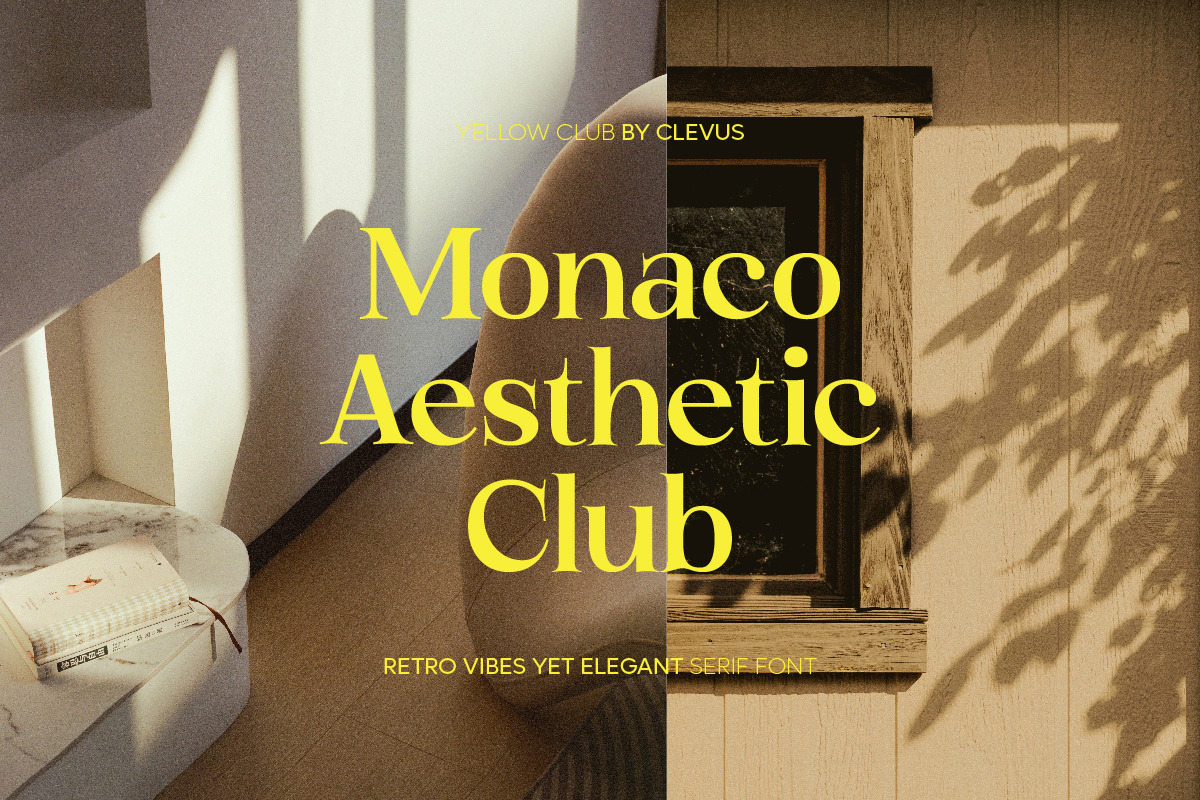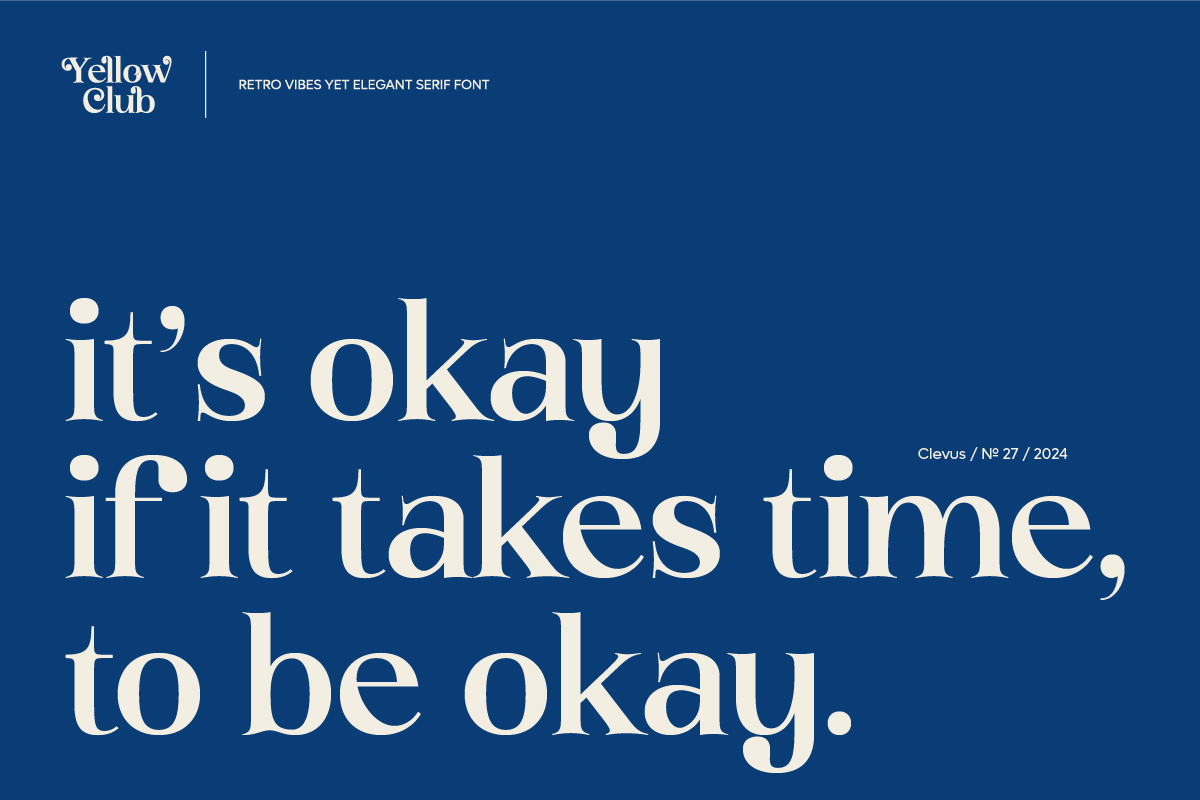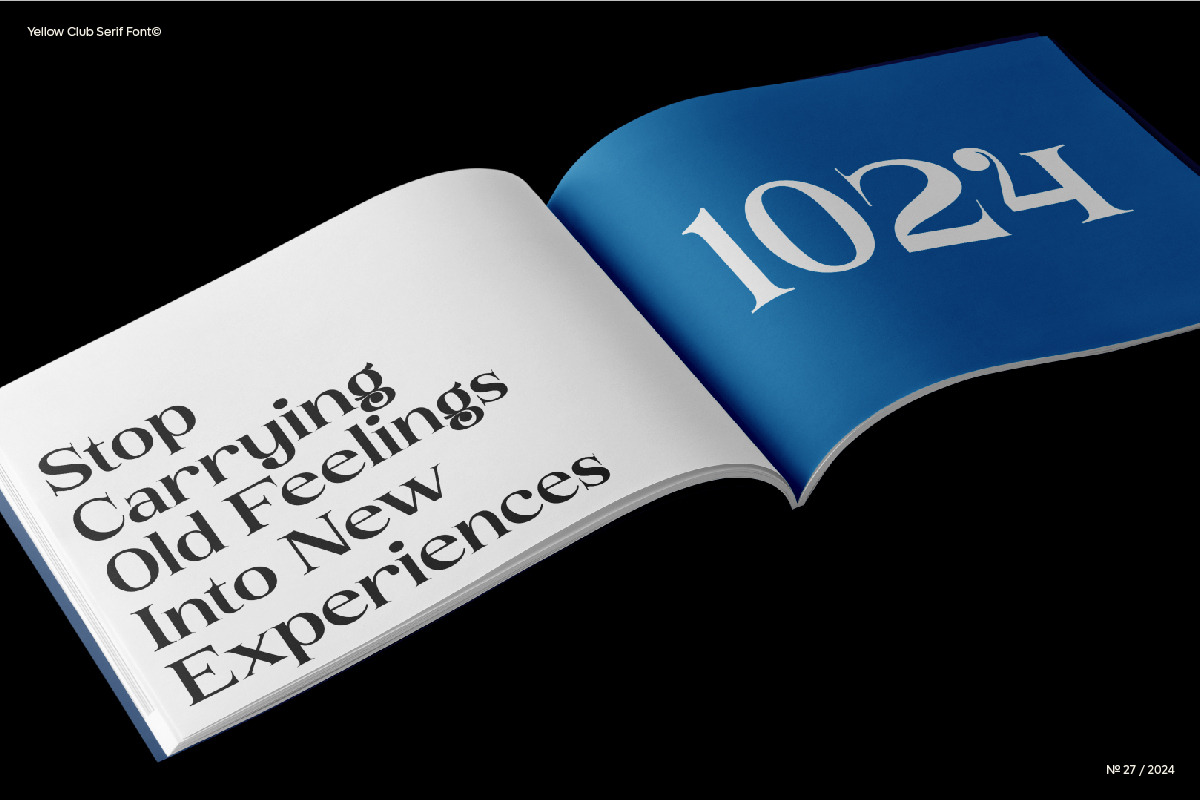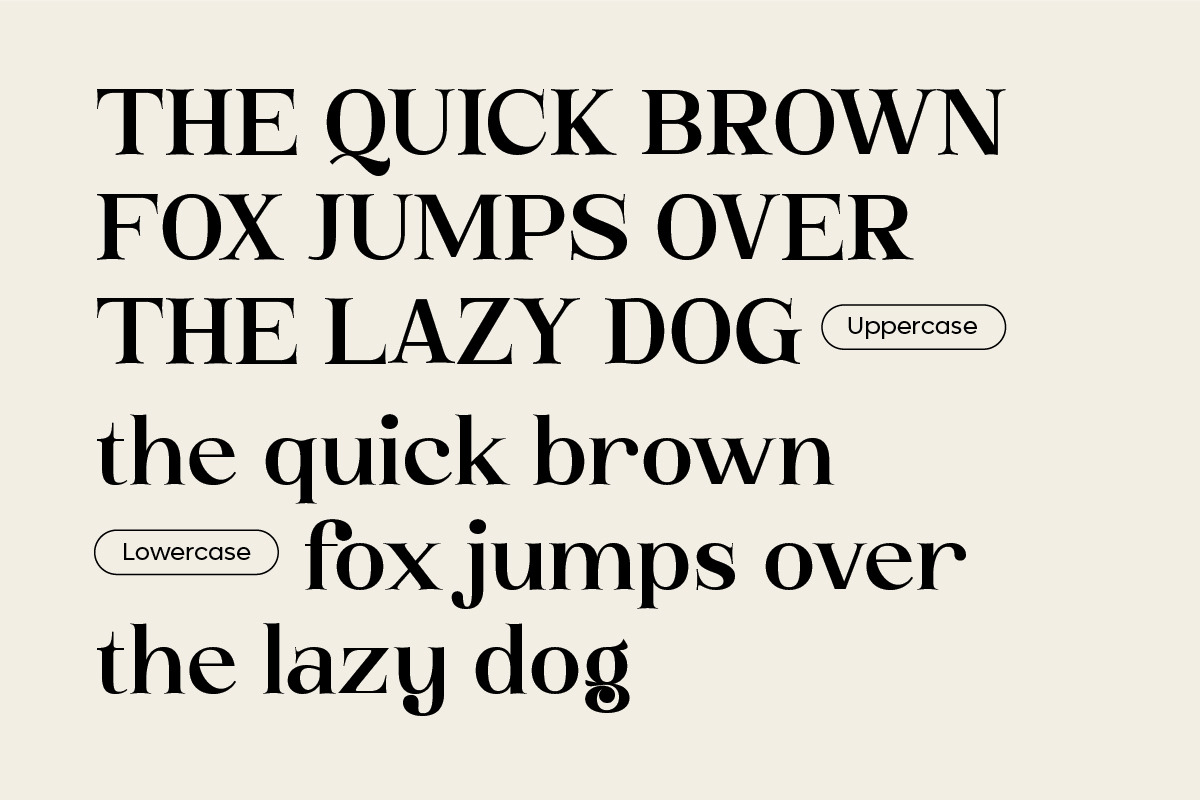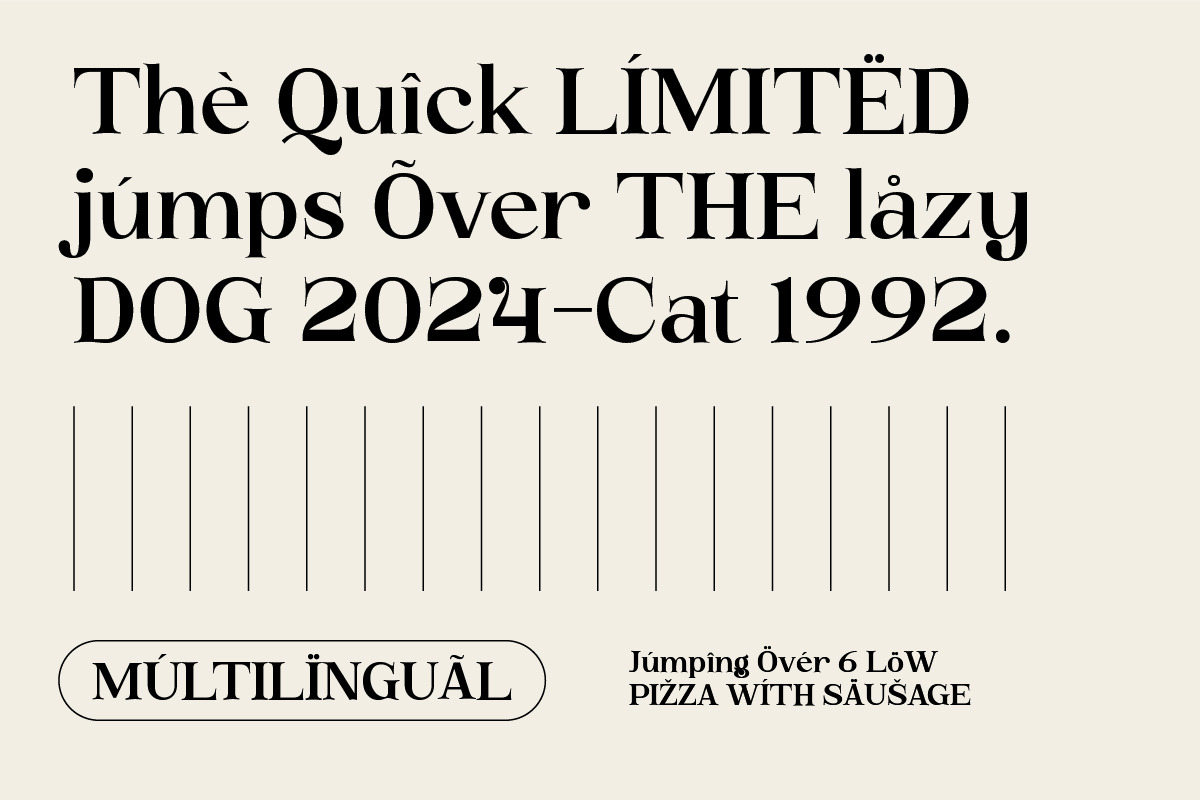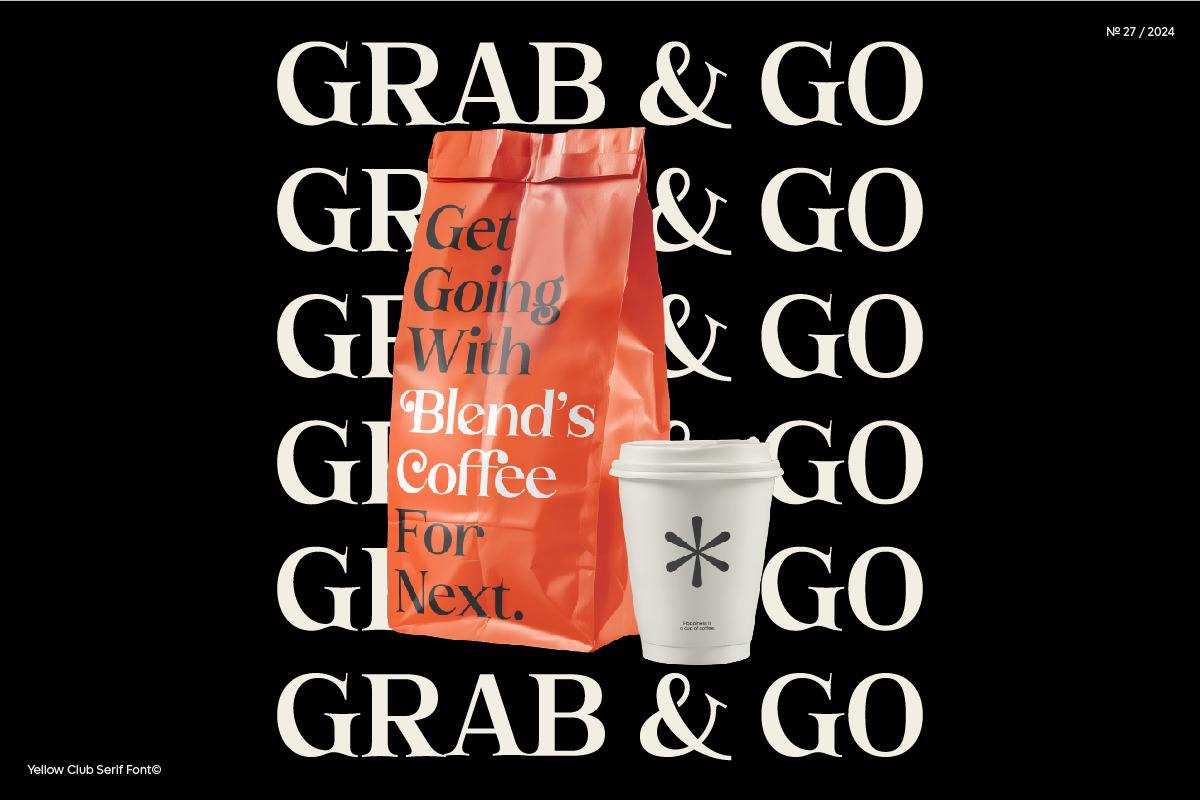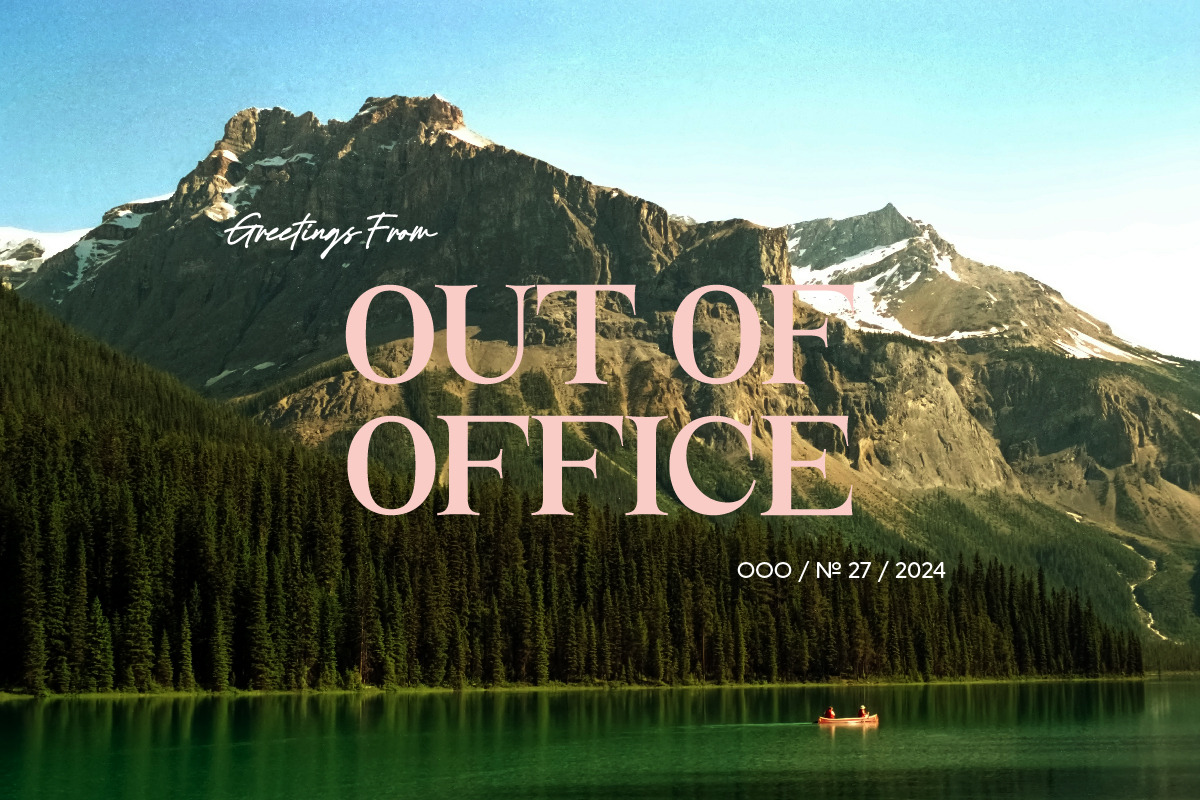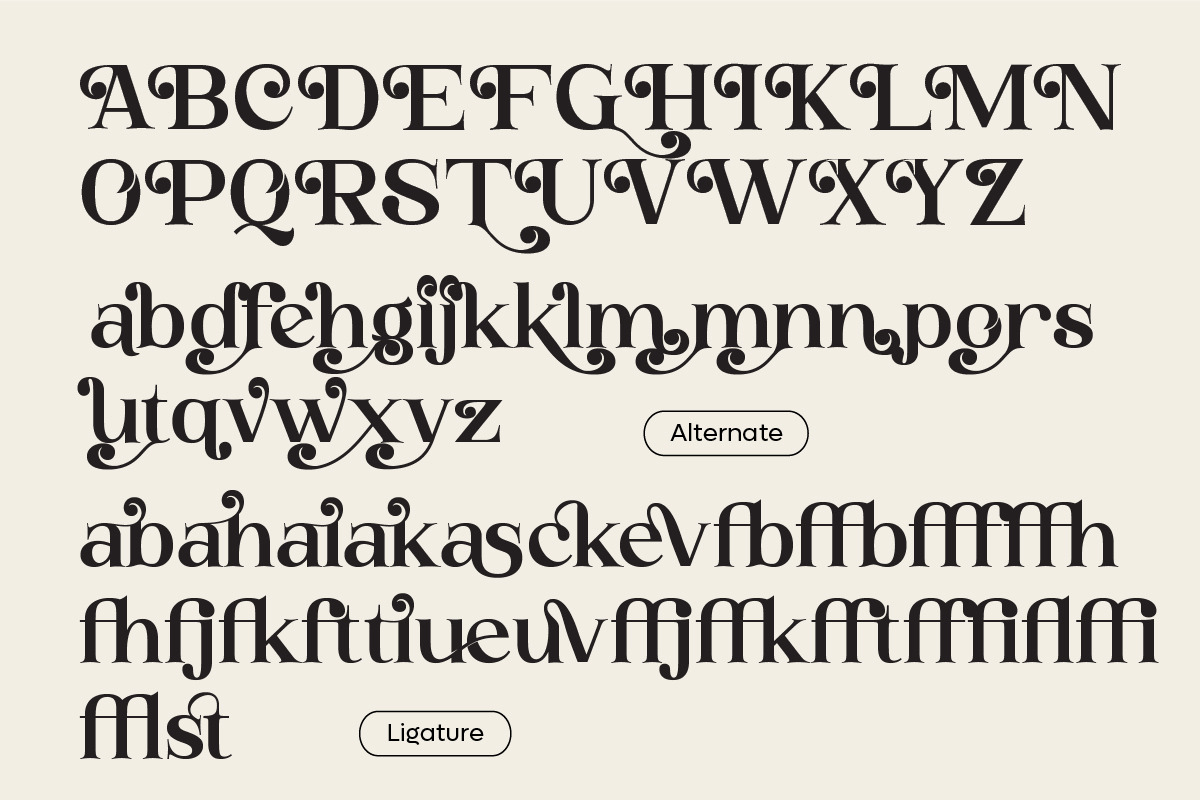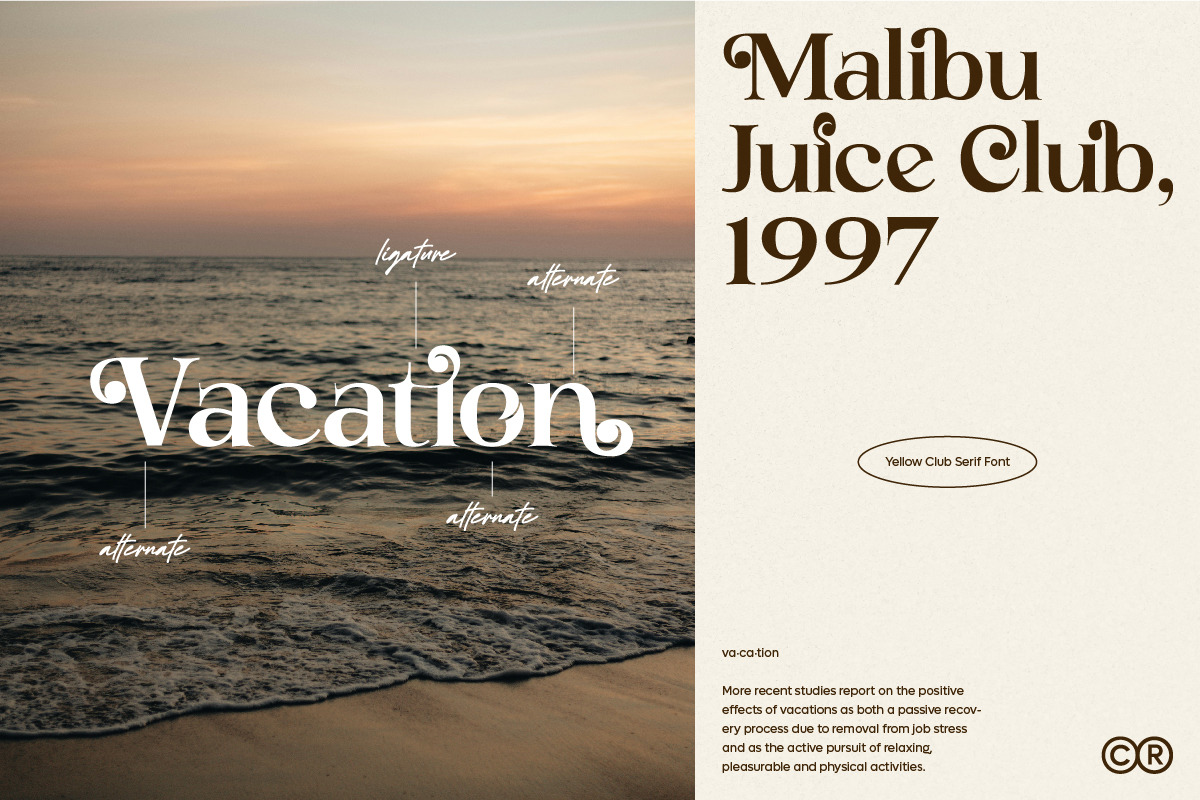
Yellow Club | Retro Serif
Proudly present Yellow Club Retro Vibes Yet Elegant Serif Font.
Yellow Club equipped with several OpenType. Have 60 unique alternates and ligatures. Comes with alternatives and ligatures, and helps to create stunning logos, quotes, posts, blog posts, branding projects, magazine imagery, wedding invitations, poster and much more.
- 60 alternates and ligatures